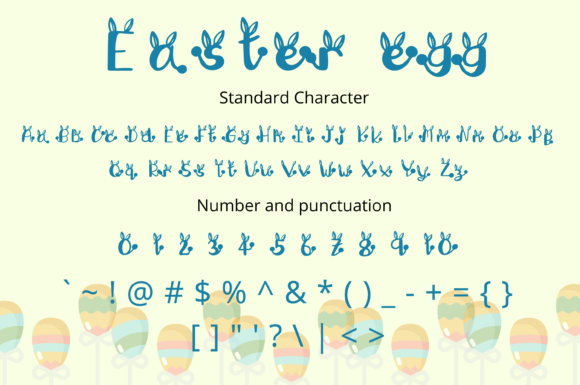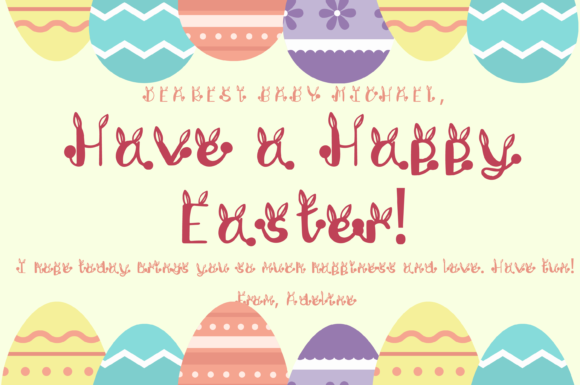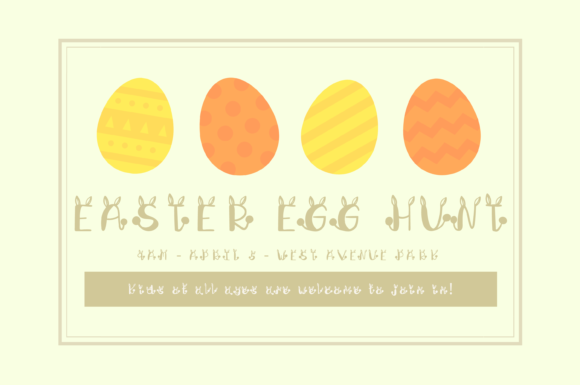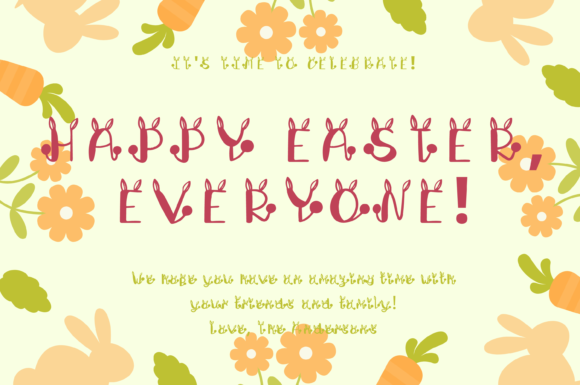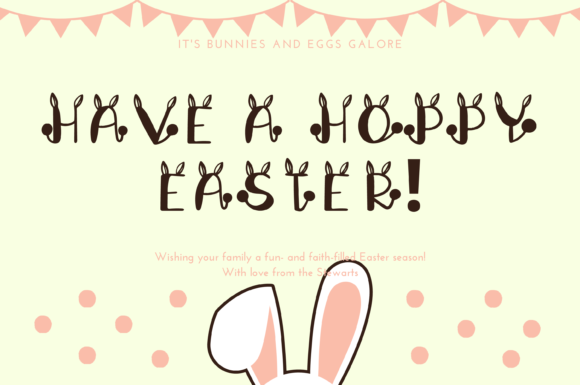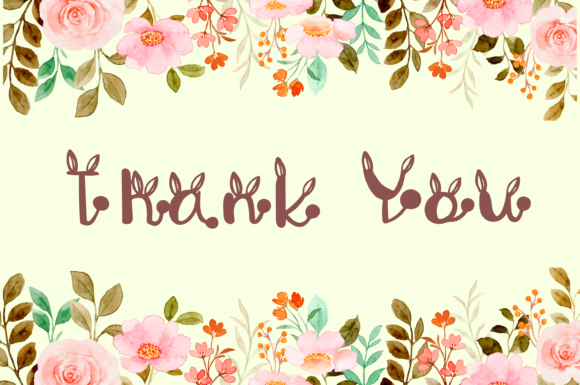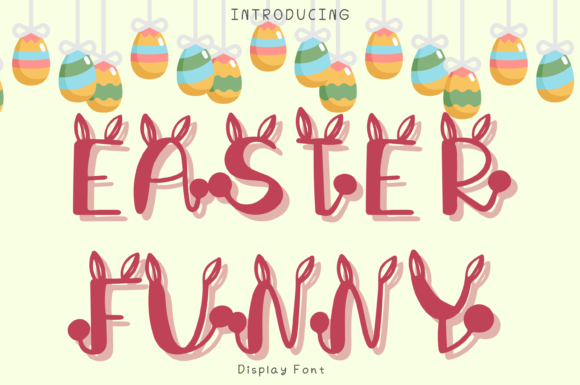
Easter Funny Style Font: Add a Whimsical Touch to Your Designs
Are you looking for a font that can add a playful and whimsical touch to your Easter-themed designs? Look no further than the Easter Funny Style font! This clean and display font is perfect for designers and crafters who want to create unique and eye-catching projects. In this article, we’ll explore the features and benefits of the Easter Funny Style font and how it can elevate your designs.
What is Easter Funny Style Font?
Easter Funny Style is a whimsical and clean display font that is perfect for Easter-themed designs. Its unique and playful style makes it stand out from other fonts, and it’s incredibly versatile. Whether you’re designing Easter cards, decorations, or social media graphics, this font is sure to add a touch of whimsy and fun to your projects.
Key Features of Easter Funny Style Font
- Whimsical and Playful Style: The Easter Funny Style font has a unique and playful style that’s perfect for Easter-themed designs.
- Clean and Display Font: This font is a clean and display font that’s designed to make a statement.
- Versatile: The Easter Funny Style font can be used for a wide range of projects, from Easter cards and decorations to social media graphics and more.
- Easily Readable: Despite its playful style, the Easter Funny Style font is easy to read, making it perfect for designs that require a clear and concise message.
Benefits of Using Easter Funny Style Font
So, why should you use the Easter Funny Style font for your designs? Here are just a few benefits:
- Adds a Touch of Whimsy: The Easter Funny Style font adds a playful and whimsical touch to your designs, making them stand out from the crowd.
- Increases Engagement: The unique and playful style of this font is sure to grab the attention of your audience and increase engagement.
- Perfect for Easter-themed Designs: This font is specifically designed for Easter-themed designs, making it a great choice for designers and crafters who want to create unique and festive projects.
- Easy to Use: The Easter Funny Style font is easy to use and can be easily matched with a wide range of projects.
How to Use Easter Funny Style Font
Using the Easter Funny Style font is easy! Here are a few tips:
- Pair it with Other Fonts: Pair the Easter Funny Style font with other fonts to create a unique and eye-catching design.
- Use it for Headings: Use the Easter Funny Style font for headings and titles to add a touch of whimsy and fun to your designs.
- Add it to Your Social Media Graphics: Add the Easter Funny Style font to your social media graphics to make them stand out and increase engagement.
- Use it for Easter Cards and Decorations: Use the Easter Funny Style font to create unique and festive Easter cards and decorations.
In conclusion, the Easter Funny Style font is a whimsical and clean display font that’s perfect for Easter-themed designs. Its unique and playful style makes it stand out from other fonts, and it’s incredibly versatile. Whether you’re a designer or crafter, this font is sure to add a touch of whimsy and fun to your projects. So why not give it a try and see how it can elevate your designs?